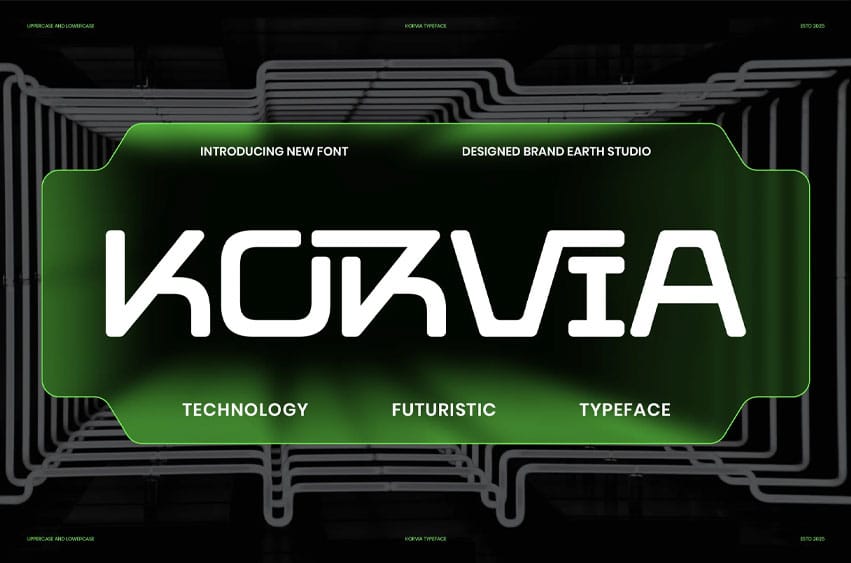
Korvia Futuristic Font is a modern, futuristic display typeface that blends sharp geometry with smooth curves, creating a bold yet sleek aesthetic. Designed for technology-driven branding, automotive design, gaming titles, and digital interfaces, this font delivers a cutting-edge look with a professional edge. The mix of rounded forms and angular details gives it a distinctive sci-fi and tech-inspired style, perfect for corporate innovation, racing graphics, and modern luxury projects.
Featuring uppercase, lowercase, numbers, and versatile symbols, Korvia supports multilingual typography while maintaining a unique identity. Whether used in space-themed visuals, modern corporate branding, or premium digital experiences, this typeface brings sophistication and futuristic impact.